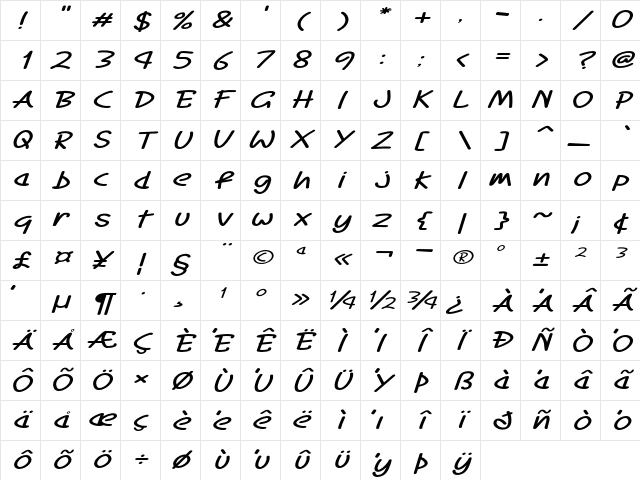
Jakaro Extra-expanded Italic
Style: Extra-expanded Italic
Jakaro Extra-expanded Italic
Complete Jakaro Extra-expanded Italic glyph index. Displaying only characters natively supported by Jakaro Extra-expanded Italic font.
Design Context for Jakaro
Jakaro is a composed and adaptable typeface that performs quietly and consistently across a wide range of design contexts. The slanted form adds forward momentum and visual energy.